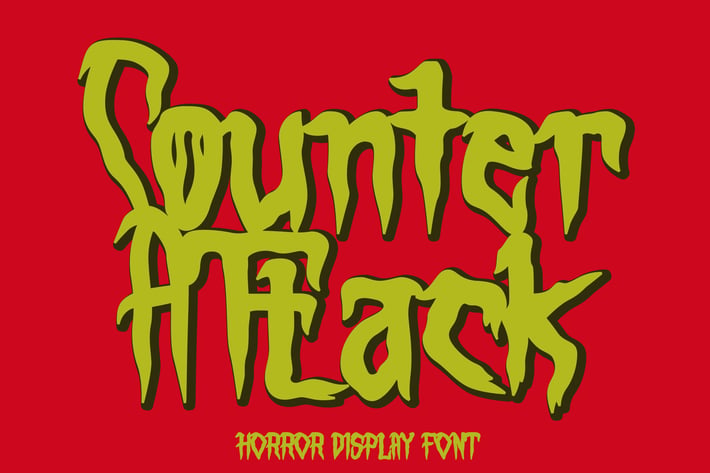
Counter Attack - Horror Font
Counter Attack - Horror Font is a display font that is inspired by horror style because its shape is very unique and is perfect for any project that you will use with this theme.
Counter Attack came with opentype features such stylistic alternates, stylistic sets & ligatures good for logotype, poster, badge, book cover, tshirt design, packaging and any more.